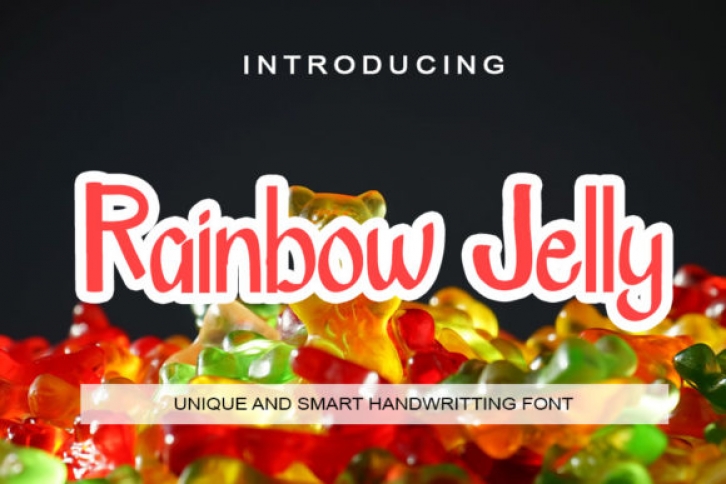
Rainbow Jelly is a cute and trendy handwritten font. Its natural and unique style makes it incredibly fitting to a large pool of designs. Use this font for your designs and explore its endless possibilities.